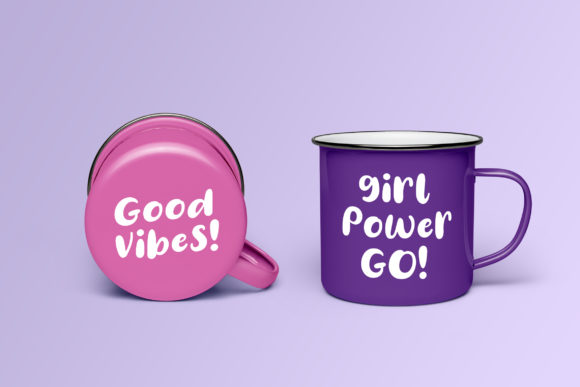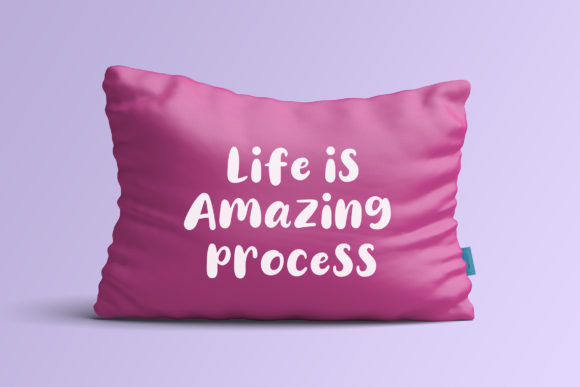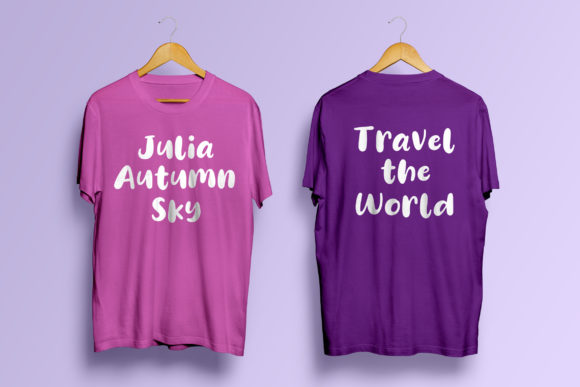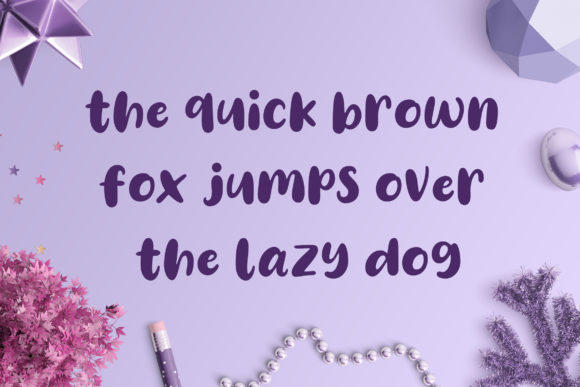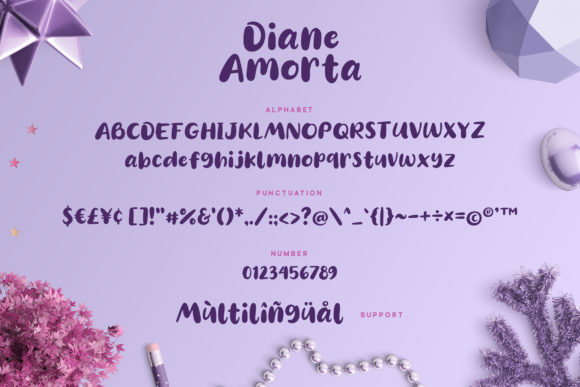
Discovering the Perfect Script: A Designer’s Dream
Have you ever sat at your desk, staring at a blank page, and felt like nothing’s coming together? It’s those moments when you wish you had a trusted companion – a font that can bring your ideas to life. For designers, the perfect script font can be a game-changer. It’s the difference between a bland, generic look and a beautiful, authentic design that captures the essence of your brand.
Enter Diane Amorta Font, a cute and simple script font that’s as charming as it is versatile. Designed to evoke a sense of warmth and elegance, this font is perfect for designers looking to add a touch of personality to their projects. Whether you’re creating a wedding invitation, a logo, or a social media campaign, Diane Amorta Font is sure to bring a smile to your face and a spark to your design.
Diane Amorta Font Key Features
- Font Size: 1,024 glyphs, providing a wide range of characters and symbols.
- Resolution: Optimized for high-resolution displays, supporting up to 72,000 DPI.
- Unique Characteristics: Features a unique blend of modern and elegant design elements, making it suitable for various design applications.
- Language Support: Supports multiple languages, including Latin, Cyrillic, and Greek alphabets.
- Font Weight: Available in Regular, Bold, and Italic weights, providing versatility for different design needs.
Diane Amorta Font Review
After giving the Diane Amorta Font a thorough look, I must say it’s an interesting addition to any design project. ✨ Here are some aspects where it truly shines:
- Unique and elegant aesthetic, perfect for high-end designs
- Excellent legibility, making it easy to read even in smaller font sizes
- Supports a wide range of languages, making it a great option for international projects
- Available in various weights and styles, offering plenty of versatility
However, like any font, Diane Amorta Font also has its limitations: ⚠️
- Some characters may look a bit too ornate, potentially overwhelming certain designs
- Lack of bold and condensed weights, which may limit its use in certain contexts
- Not suitable for casual or informal designs, as it may come across as too formal
Overall, Diane Amorta Font is a solid choice for designers looking to add a touch of sophistication to their projects. While it may not be the best fit for every design, it’s certainly worth considering for high-end or luxury projects where a elegant and refined look is desired.
Alternatives to Diane Amorta Font for Designers
Carolyna Pro is a modern script font designed by Alexey Koval, perfect for creating elegant and luxurious designs. It’s ideal for wedding invitations, branding, and packaging. Compared to Diane Amorta Font, Carolyna Pro has a more refined and sophisticated look, making it suitable for high-end designs.
Great Vibes is a beautiful script font designed by Handmade Font Foundry, suitable for creating unique and eye-catching designs. It’s perfect for posters, social media graphics, and advertising materials. Compared to Diane Amorta Font, Great Vibes has a more playful and casual tone, making it ideal for creative and artistic projects.
Pacifico is a beautiful script font designed by Vic Fieger, perfect for creating relaxed and beachy designs. It’s ideal for summer campaigns, branding, and packaging. Compared to Diane Amorta Font, Pacifico has a more laid-back and casual look, making it suitable for designs that require a tropical and carefree vibe.
Alex Brush is a elegant script font designed by Laura Worthington, perfect for creating sophisticated and refined designs. It’s ideal for branding, packaging, and editorial materials. Compared to Diane Amorta Font, Alex Brush has a more classic and timeless look, making it suitable for designs that require a sense of luxury and elegance.